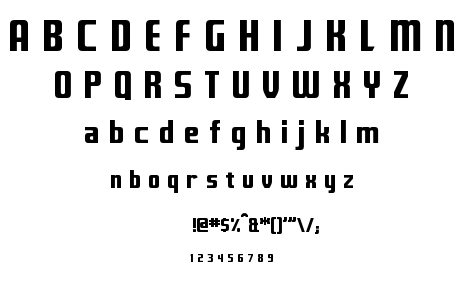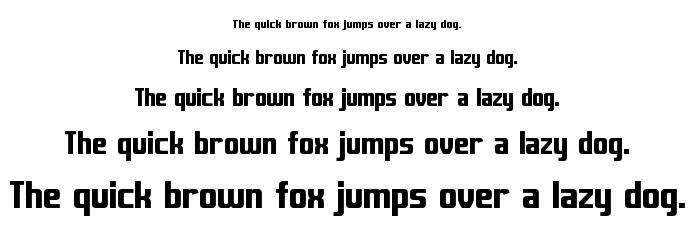
Based on the cover text of many classic Star Trek novels from the 1970s and early 1980s. Includes lower case, accent characters, extended punctuation, and Euro.